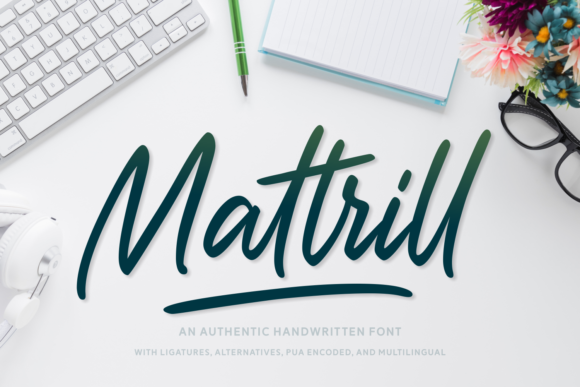
**Introducing Mattrill Font: The Epitome of Elegance and Enchantment**
In the realm of typography, where letters dance and words come alive, there exists a font that captures the essence of allure and sophistication like no other - Mattrill Font. This exquisite script, born from the creative mind of Situjuh, is a masterpiece that will elevate your designs to unprecedented heights.
**A Symphony of Style and Grace**
Mattrill Font is not merely a collection of characters; it's an artistic expression that weaves its magic into every word and phrase. Its graceful strokes and elegant curves evoke a sense of timeless beauty, while its unique style adds a touch of whimsy and playfulness. With Mattrill Font, your designs will exude an aura of sophistication and charm that will captivate your audience.
**Transform Your Designs into Works of Art**
Whether you're a seasoned designer or just starting your creative journey, Mattrill Font is the perfect tool to ignite your imagination and bring your design visions to life. Its versatility knows no bounds, lending itself seamlessly to a wide range of projects, from wedding invitations and greeting cards to posters, logos, and branding materials. With Mattrill Font, the possibilities are endless.
**Unleash Your Creative Potential**
Experience the transformative power of Mattrill Font as it takes your designs to new heights of elegance and creativity. Its meticulously crafted characters will add a touch of magic to your projects, leaving a lasting impression on your audience. From personal correspondence to professional presentations, Mattrill Font will elevate your words and make them shine.
**Immerse Yourself in a World of Beauty**
With Mattrill Font, you're not just downloading a font; you're embarking on a journey into a realm of enchantment, where words become art and imagination knows no limits. Let your creativity soar as you explore the endless possibilities that Mattrill Font offers. Discover the beauty that awaits you within the curves and flourishes of this extraordinary script.